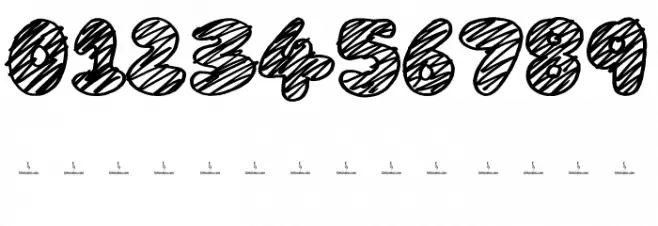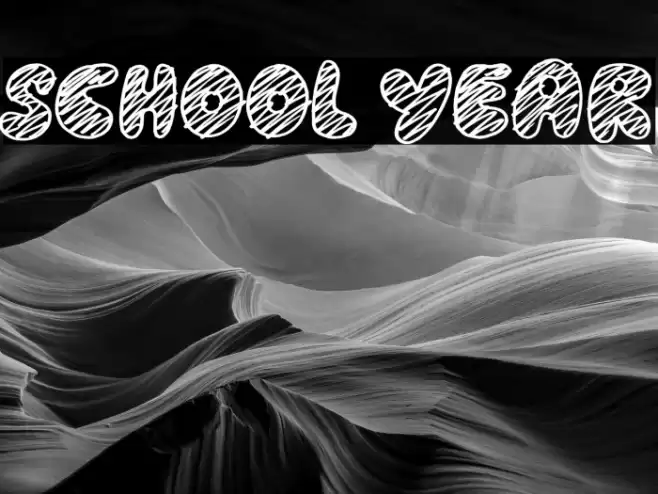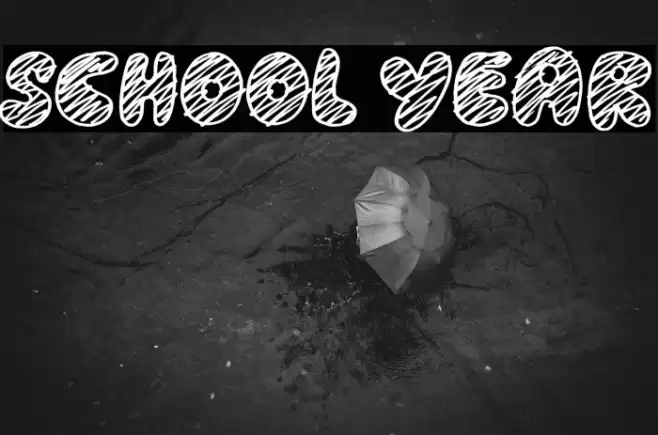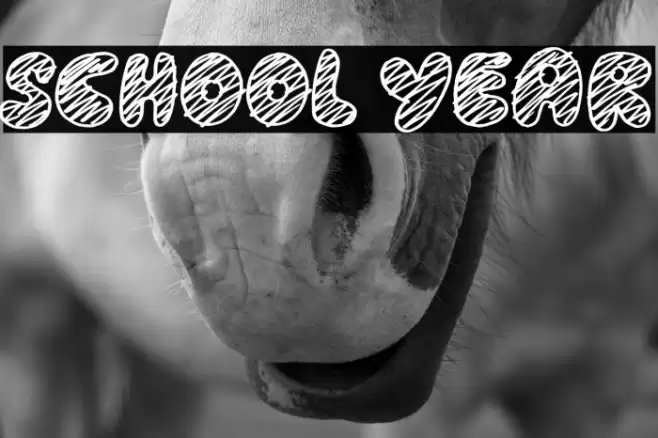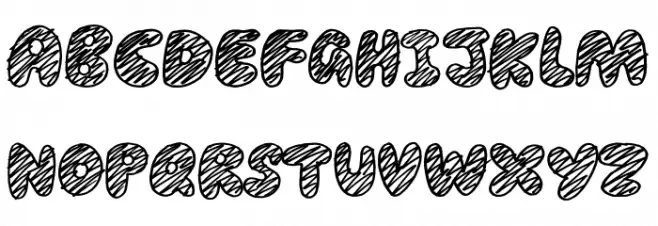
School Year Font
School Year Description
This playful and bold font features a unique hand-drawn style with a scribbled texture filling each character. The letters are rounded and thick, giving them a friendly and approachable appearance. The uppercase and lowercase letters maintain a consistent style, with the lowercase being slightly smaller in size. Numbers and special characters are also included, following the same textured pattern. This font exudes a casual and fun vibe, making it ideal for creative projects that require a touch of whimsy.
| Overall Style | Playful, Casual |
| Use Case | Headlines, Posters, Creative Branding |
| Proposed Projects | Ideal for children's book covers, playful posters, school projects, and creative branding. |